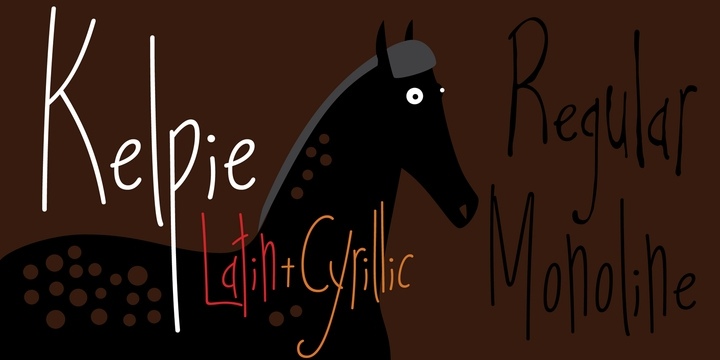
Kelpie Font
Kelpie Font is perfect for Scottish cultural organizations, Celtic mythology publications, mystical entertainment venues, folklore museums, Gaelic heritage centers, and supernatural storytelling platforms. This enchanting typeface excels in Highland tourism promotions, fantasy book covers, mythological documentaries, and any application where ancient Celtic legends and mystical water spirits create captivating connections with folklore enthusiasts.
What makes Kelpie Font so exciting is its extraordinary ability to capture the mystical allure and shape-shifting nature of Celtic water spirits through fluid, transformative letterforms that seem to flow like highland streams. The font features aquatic curves, legendary proportions, and supernatural character shapes that evoke the mysterious power of Scottish folklore. Its mythical presence makes it perfect for brands celebrating Celtic heritage and supernatural storytelling.
Kelpie Font comes in a legendary family including Light, Regular, Medium, Bold, and Highland weights. Each style features complete uppercase and lowercase character sets, Celtic symbols, mystical numerals, and folkloric punctuation marks. The font family also includes Gaelic alternates, water ligatures, and shapeshifting variations that allow designers to create authentic Celtic communications with mythological appeal and professional enchantment.
The font's Celtic character makes it particularly effective for Scottish heritage organizations, folklore educators, Celtic music venues, and supernatural entertainment companies. Its flowing readability ensures that Kelpie Font communicates clearly while maintaining its distinctive mythical personality. The font's ability to evoke ancient wisdom and supernatural wonder makes it an invaluable loch for any project seeking to honor Celtic heritage and connect with audiences through the timeless appeal of Scottish folklore, mystical legends, and the eternal magic of Highland water spirits.